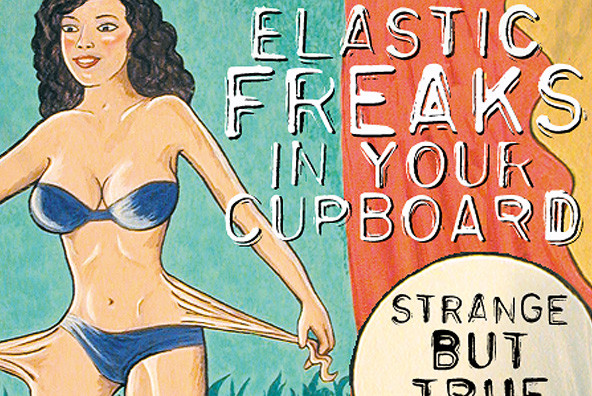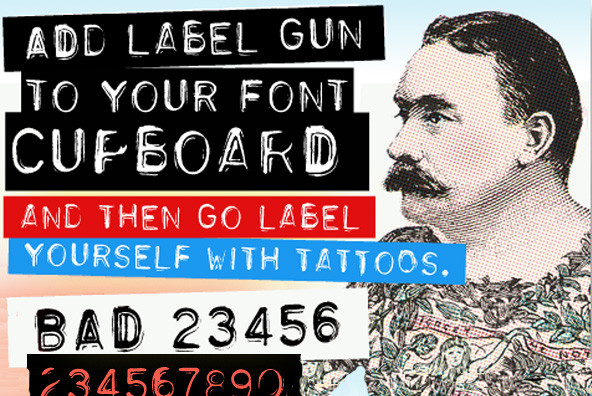
Label Gun
Foundry: TypeArt
Label Gun™ is a font based on the scans of REAL impressions made into a plastic ribbon by a labelling machine. Labelling machines were commonly used throughout the 1960s and 70s.
WHERE'S THE LOWERCASE?
You will discover that there are no lowercase letters in these fonts. Although some versions of the original labellers did imprint lowercase letters, most were only capable of producing uppercase characters. To give you more variety and alternate characters to choose from, each Label Gun™ font has 2 versions of the uppercase alphabet (i.e. although the "lowercase" character slots are filled with capital letters, they are all slightly different from their uppercase counterparts). Depending on the words you are setting, you may want to experiment with the different versions to see which combinations will give the most punch to your design.
WHICH VERSIONS DO WE RECOMMEND?
The designer's personal favourite version of Label Gun™ is the Regular Lowercase. For quick and dirty work, this font seems to set with the most pleasing texture and automatic baseline shifts. In general, we recommend starting with this font, and then adding alternate characters where required by selecting the characters you want to change and then either typing the uppercase equivalent or changing the selected font to one of the other family members.
The LABEL GUN™ NUMBERS fonts
Because each regular font contains only one set of numbers, we decided to add some extra number characters to the "Numbers" fonts. Not only is there a third set of numbers in the number character slots, but there is also a fourth set of numbers which you can achieve but holding down the appropriate number key in combination with the shift key--i.e. in the following character slots: @#$%^&*() .
As an added bonus, we pasted some more versions of the alphabetical characters into the alphabet character slots, so you actually have two more versions of the Label Gun™ alphabet, although not all of the characters are different from those in the other fonts. If you are specifically looking for more alternate characters, the letters which are different are: A, a, Ä, B, b, C, c, D, d, E, e, F, f, G, g, H, h, M, P, p, Q, q, R, r, S, s, U, u, Ü, Y. The other characters in these fonts are the same as the ones in the Label Gun(TM) Regular font.
HOW DO I CREATE THE "TAPE" EFFECT?
For designers using Page Layout software such as QuarkXpress, InDesign or Illustrator, you can create the "tape" with custom widths and jagged edges by drawing boxes, and placing your Label Gun™ text on top, coloured in white. As the Regular Label Gun™ fonts all come with full International Character sets, you can access all the characters using this technique and adjust the ribbon width to create a proper balance which will accomodate any accented characters.
For users who are using word processing software which may not allow them to produce these kind of effects, a special font called Label Gun™ Tape has also been included. It sets with clear characters on a ribbon background. Designers using Page Layout software may also want to use this version of the font for the purpose of creating a ribbon where the letterforms are transparent, allowing an underlying image to show through the letter parts of the ribbon.
ABOUT THE "LABEL GUN™ TAPE" FONT
(1) Because the ribbon width has been balanced to accommodate only non-accented characters, all of the accented characters and other special characters are missing from this version of the font. All the alphabetical characters, numbers and common punctuation are present, however. If you need other special characters, you will have to manually create your own ribbon using the technique described above, and using the other fonts.
(2) In the "Tape" version, the alphabetical characters are taken from Label Gun™ Regular font.
(3) You will probably want to begin and end each line you set with a space character, otherwise the first and last letters on each line will appear to be "cut" too close to the edge of the tape. Occasionally, the "space" character does not display or print the blank tape. In such cases, just type ANY special character in its place. The reason the space character does not always work properly is because font software specifications were never set up to accomodate printable characters in what is supposed to be a blank character slot.
CREATIVE USES OF LABEL GUN™
COLOUR SELECTION
Most of the original labeller tape was either black, blue, red or dark green, with the resulting imprints showing up in white on the plastic. If you wish to modernize the colour scheme, you might even try colouring.